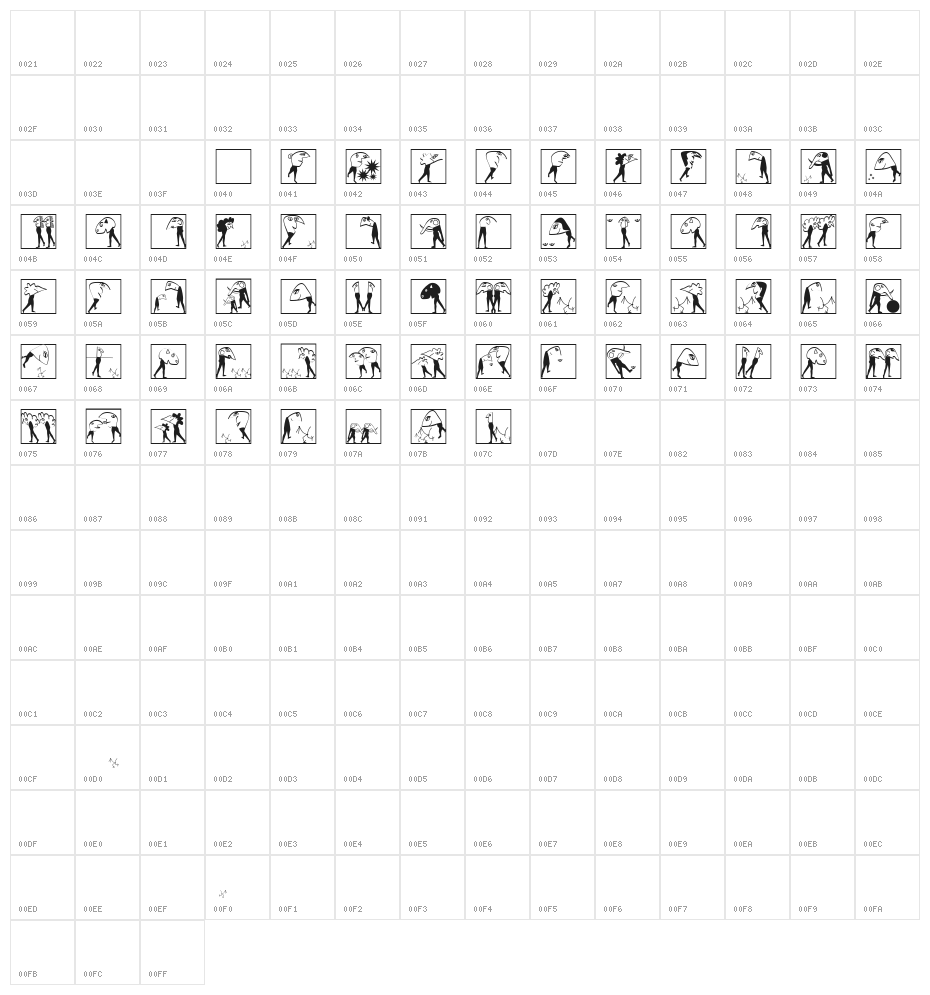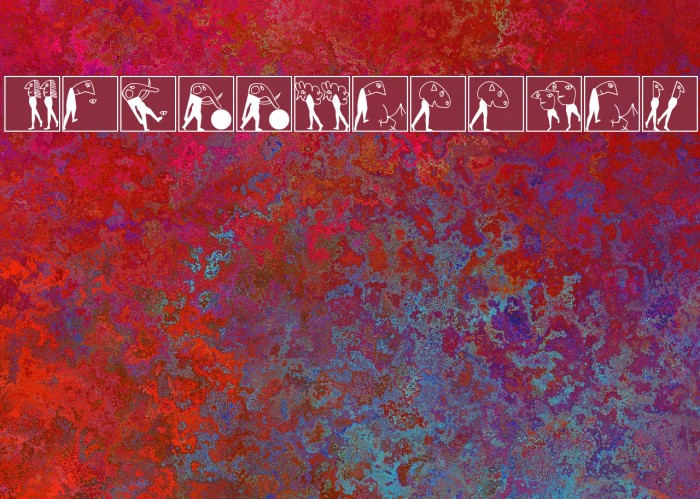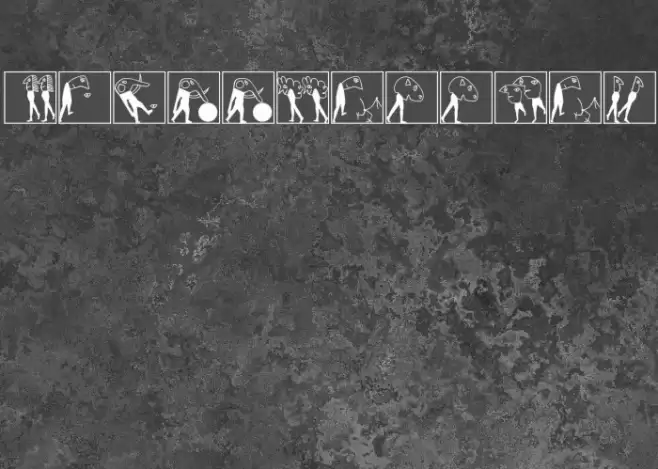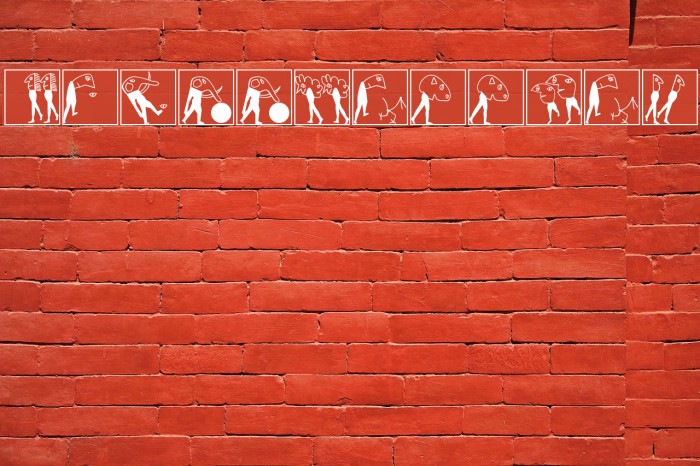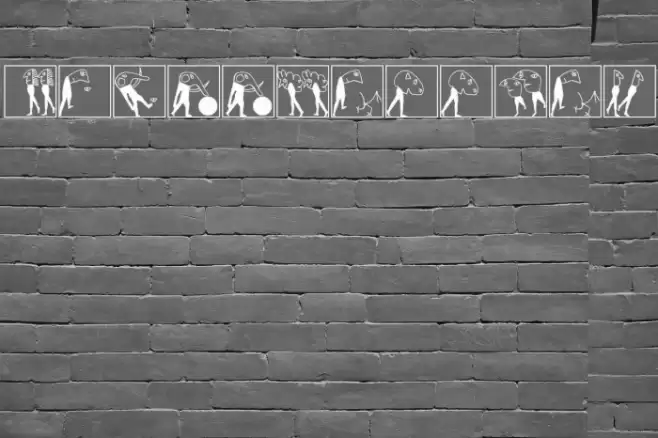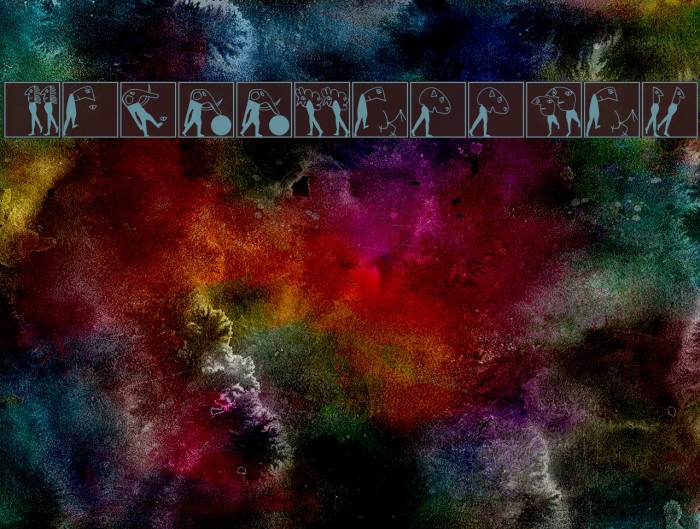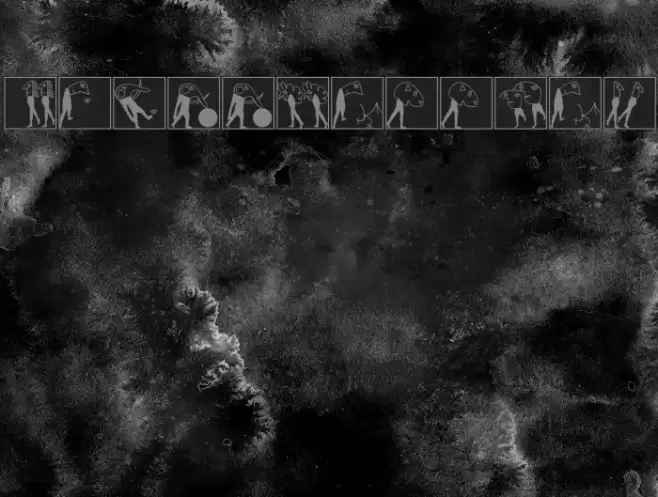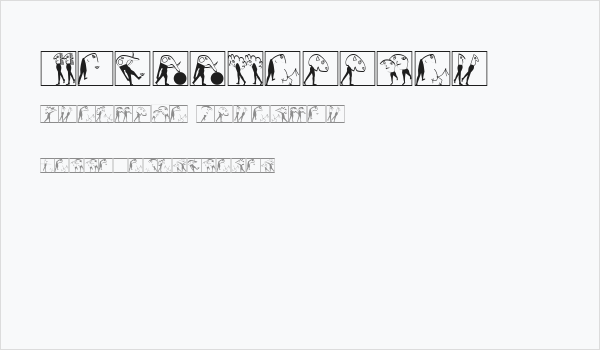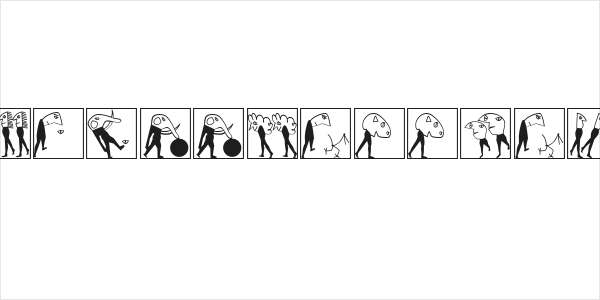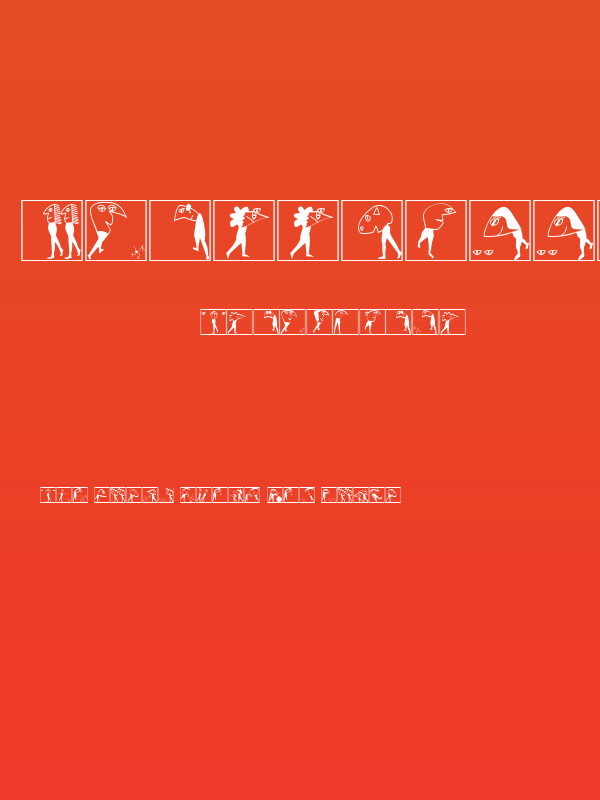
Kopffuessler Font
Kopffuessler Description
This is a highly creative and whimsical font that features cartoon-like characters instead of traditional letters and numbers. Each character is represented by a unique, playful figure with exaggerated features, such as large heads and expressive poses. The style is reminiscent of doodles or sketches, offering a humorous and artistic flair. The characters are drawn with bold lines and have a dynamic, lively appearance, making them stand out. This font is not suitable for standard text but serves as an artistic representation, ideal for projects that require a touch of humor and creativity.
| Use Case | Logos, Posters, Artistic Projects |
| Proposed Projects | Ideal for children's books, comic strips, playful posters, or creative branding projects. |